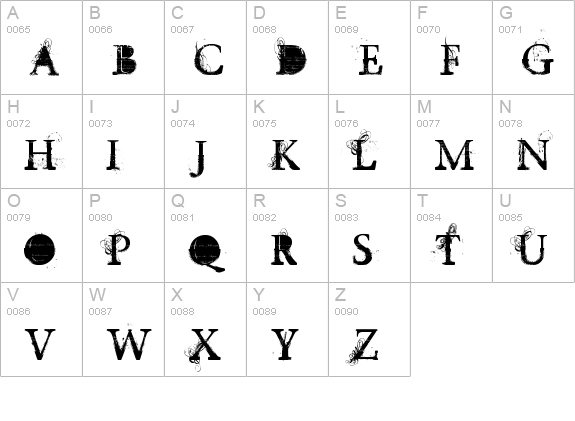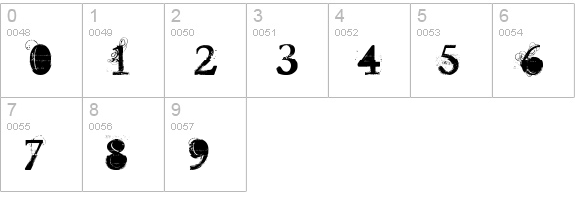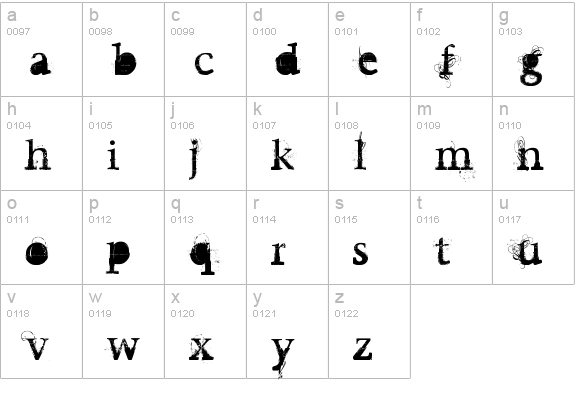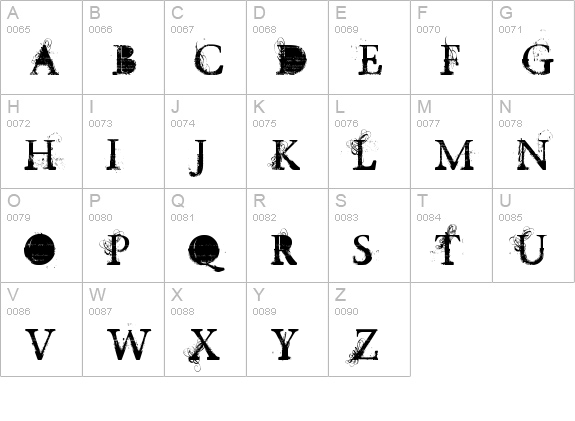
Guilty gardens Font Details
Guilty Gardens font is a stunning display typeface that exudes elegance and sophistication. With its intricate floral-inspired design, this font is perfect for adding a touch of charm to any project. The delicate curves and detailed embellishments make Guilty Gardens font a truly unique and eye-catching choice for invitations, branding, and more. What sets Guilty Gardens font apart is not only its beautiful aesthetics but also the fact that it is available for free download at FontsMarket.com. This means you can easily access this exquisite font and use it in your designs without any cost. Embrace the beauty of Guilty Gardens font and elevate your projects with its graceful and enchanting style.